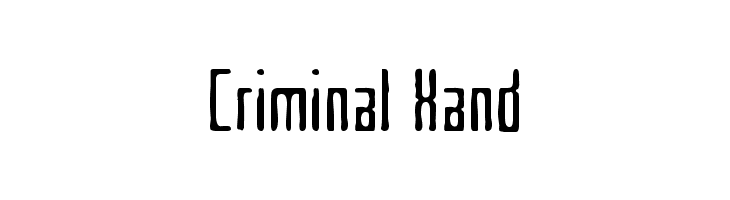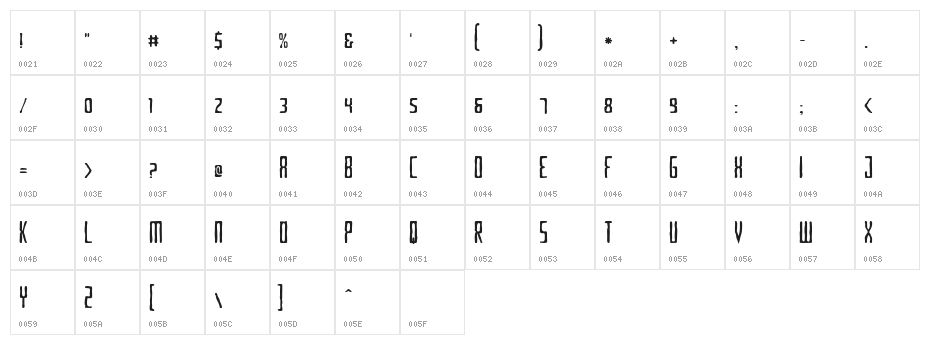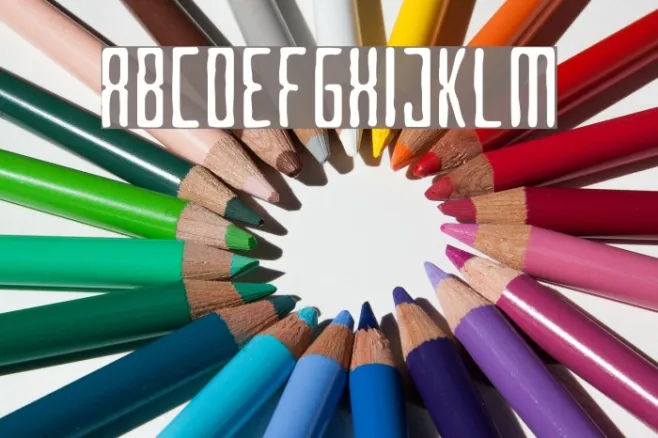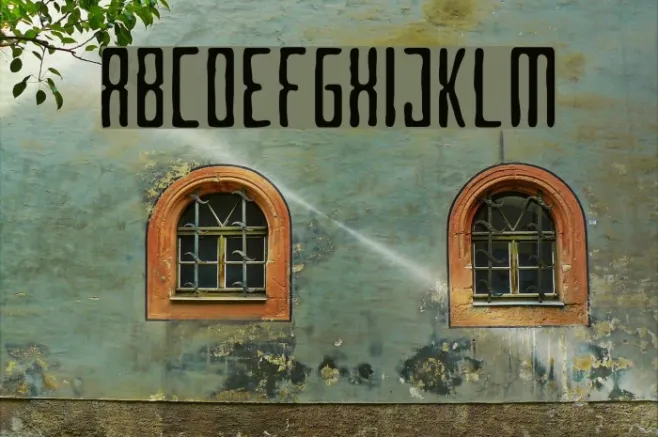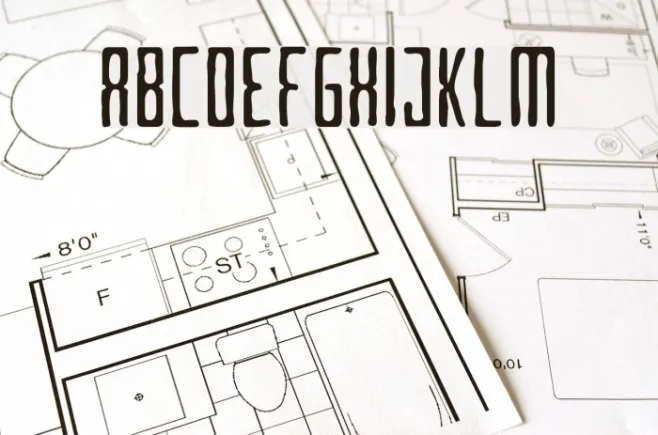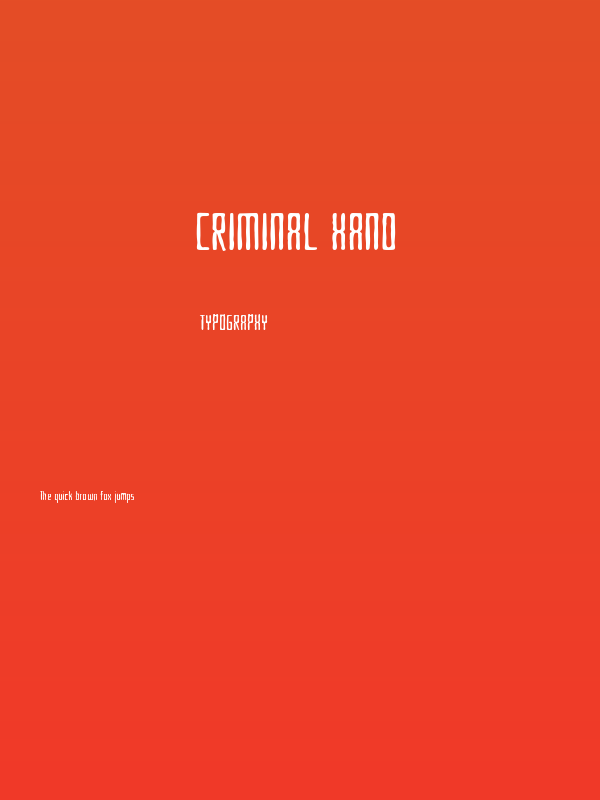
Criminal Hand Font
Criminal Hand Description
This font features a unique, edgy design with elongated, narrow characters that give it a distinct, hand-drawn appearance. The uppercase and lowercase letters maintain a consistent height, creating a uniform look. The strokes are uneven, adding a raw, organic feel to the text. The numbers and special characters follow the same style, ensuring a cohesive appearance across all glyphs. This font's unconventional style makes it stand out, with its slightly irregular lines and bold presence.
| Proposed Projects | Ideal for projects requiring a bold, unconventional look such as posters, album covers, or branding for edgy products. |